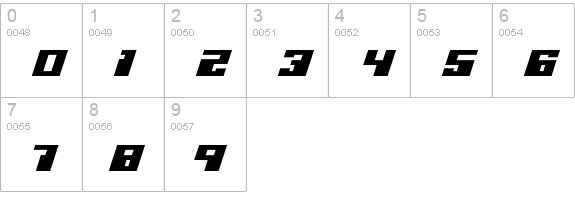
Micronian Expanded Italic Font Details
Micronian Expanded Italic is a distinctive, extended-width, italic variant in the Micronian typeface family \xE2\x80\x94 well suited to design and typography projects.
Introducing Micronian Expanded Italic font, a sleek and modern typeface designed to make a bold statement in your projects. Its distinctive italicized style adds a touch of sophistication and elegance to any design. The Micronian Expanded Italic font is perfect for branding, logos, headlines, and more, giving your work a refined and professional look. Best of all, this versatile font is free to download at FontsMarket.com, making it accessible to designers and creatives looking to enhance their projects without breaking the bank. Don't miss out on the opportunity to elevate your designs with the Micronian Expanded Italic font - download it today and start creating stunning visuals that stand out from the crowd.